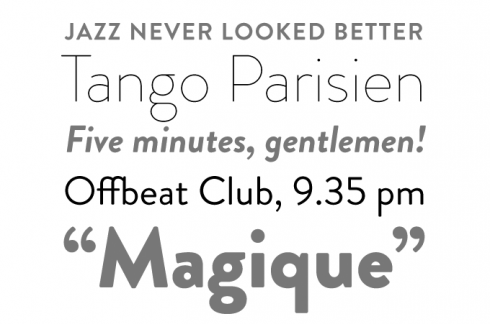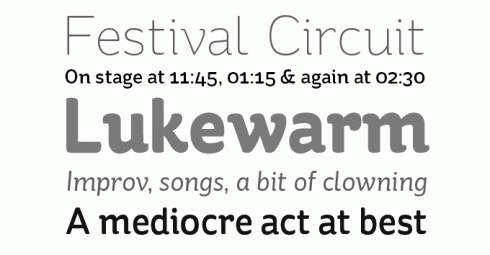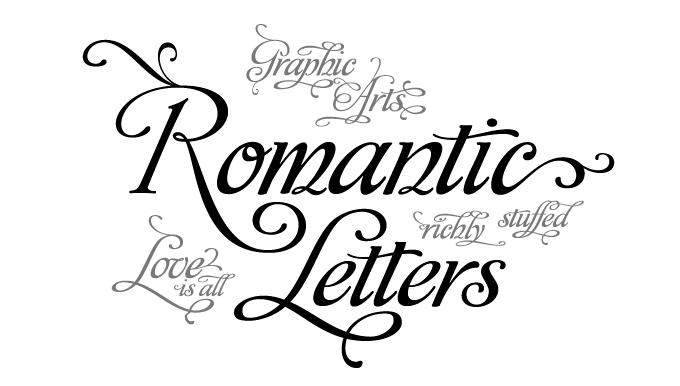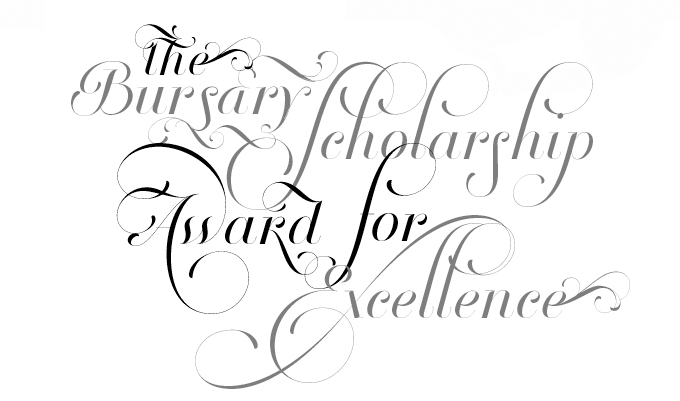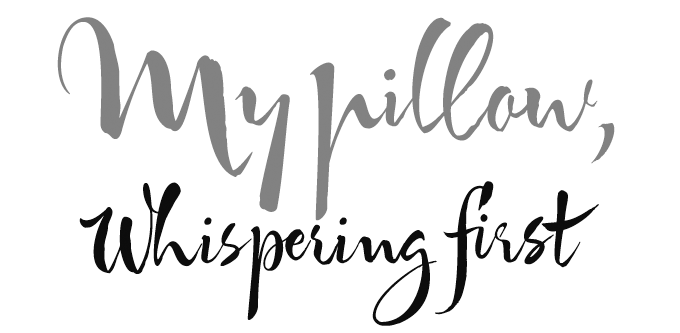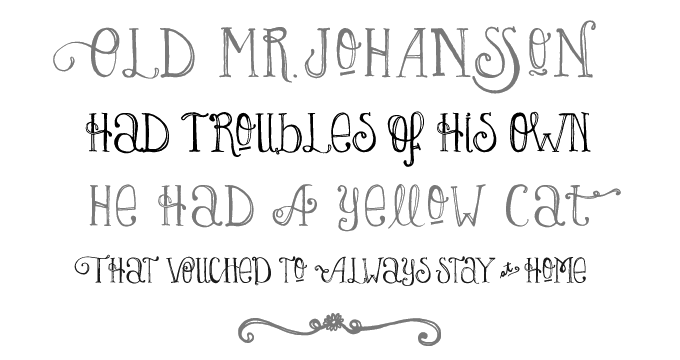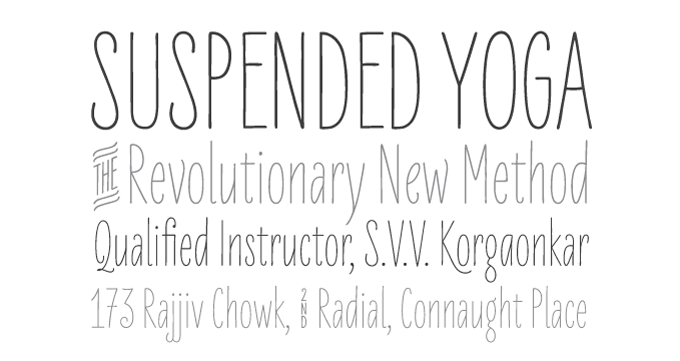
Top fonts of 2010 : MyFonts.Com
MyFonts’ parade of most popular fonts of 2010 is based on sales, so ultimately this is the list that customers/designers voted for. And a fascinating collection it is too, offering striking, charming and highly original faces for all tastes and budgets. Some trends? “Friendly and human” is big, with typefaces sporting rounded corners, soft silhouettes or hand-drawn letterforms. Scripts are going as strong as ever. And two cities have risen to prominence as typographic metropoli, 7500 miles apart: Buenos Aires and Berlin.
Not only was Brandon Grotesque the most successful new sans serif of the year, it was also the best selling 2010 release overall. Designer Hannes von Döhren took a fresh look at the geometric modernist classics from early twentieth-century Germany. Giving Brandon long ascenders and descenders, he took his cues from the more stylish and decorative typefaces of that genre, such as Erbar or Kabel. Brandon Grotesque makes sensible use of the compass and ruler: the geometric shapes were optically corrected for better legibility and harmony. The rounded corners lend the typeface a softer look in large sizes.
Lady René is probably the most whimsical and spontaneous font to have come out of Agentina’s Sudtipos foundry, usually known for its elaborate, polished script fonts (of which we will encounter a classic example below). In fact, Lady René was not drawn by one of the collective’s regulars; it is the first typeface by newcomer Laura Varsky. Born out of a love of illustration and a reverence for the written word, her font has the directness and spontaneity of a handmade drawing. Alejandro Paul’s hard work made sure that, although unpolished in nature, the font is technically impeccable, its character set full of surprises.
Having joined MyFonts just over a year ago, Laura Worthington was one of 2010’s most outstanding designers, producing one best-selling font after the other. Origins was her biggest hit: a semi-connected calligraphic script with a confident flow. Based on hand-lettering with a Crow Quill pen on parchment paper, it has natural, rough outlines that contribute to its subtly antiquated feel. With gracious ascenders and descenders, Origins lends an elegant and somewhat formal touch to headlines, titling, invitations, branding and more.
Stereotypes is run by designer Sascha Timplan, whose output these past twelve months has been quite something. St Ryde, his successful text and display face, joins the ranks of lively yet legible typefaces with rounded terminals (think Fritz, Sauna or Haptic). Combining a sophisticated structure with playful details, St Ryde has a logic and a charisma all its own. It is a semi-serif rather than a sans; while it swings and bounces at display sizes, it looks more static and regular when used small. With multiple figure sets, small caps and open italics, it was made for serious typographic work, in spite of its unorthodox forms.
Alejandro Paul of Sudtipos is a master of that fascinating genre in contemporary type design that could be labeled “acrobatic scripts.” His ground-breaking Affair helped define the genre; it became available at MyFonts in early 2010 and has remained hugely popular throughout the year. Affair is one of those OpenType-programmed script fonts that need contemporary layout software to function as intelligently as it was designed; when using such OpenType-enabled programs, the font will help you select the ideal version of each letter in a particular combination to create amazing headlines and logos. Stunning stuff.
Let’s hear it for another highly creative character from Berlin: Ulrike Wilhelm. Her one-woman foundry LiebeFonts (which is German for “sweet fonts”) published a series of witty, mildly successful picture fonts during its first year. It was her first alphabetical font LiebeErika that led to her breakthrough, skyrocketing into the upper reaches of our Hot New Fonts list. LiebeErika is special: despite its hand-made look, it is regular, lucid and readable. With well-drawn, supple curves and thin, compressed characters, it has charm as well as sensibility. It is also full of extras, such as cheerful alternate forms and figures, ligatures, nicely designed key words (“and”, “the”, “by”) and more.
One of MyFonts’ greatest hits of the past two years is the Museo series from Jos Buivenga’s exljibris foundry. The family started out as a semi-serif, then branched out into the sans-serif genre with the cool, clean Museo Sans. Museo Slab logically completed the suite and, as was to be expected, it has been hugely successful throughout the past year. The sturdy slab serifs combine perfectly with the family’s friendly geometry, resulting in a wonderfully readable typeface.
In the well-establshed genre of exuberant formal script fonts, Breathe by Maximiliano R. Sproviero is a special case. Designed to look alive, fresh and airy, the font takes a jump from the work of Didot and his contemporaries from around 1800 to today’s fashion of endless swashes and flourishes. Breathe Pro comes with over 1000 glyphs, including huge sets of alternates, swashes, historical forms, ligatures and more. If you want a less intricate font in the same style, choose Breathe Standard.
Sketching type was once a skill every graphic designer had to master in order to produce convincing mock-ups and tell the typesetter how the final result should look. With the recent crop of sketched fonts, the mock-up has now become the final product. Of the various hand-made versions of classics we’ve seen the last couple of years, Hiekka Graphics’ Sketchetik is the biggest hit. Based on that 1950s modern classic that is still the world’s best-selling font family today, Sketchetik combines lucid Swiss proportions with a loose hand-drawn look.